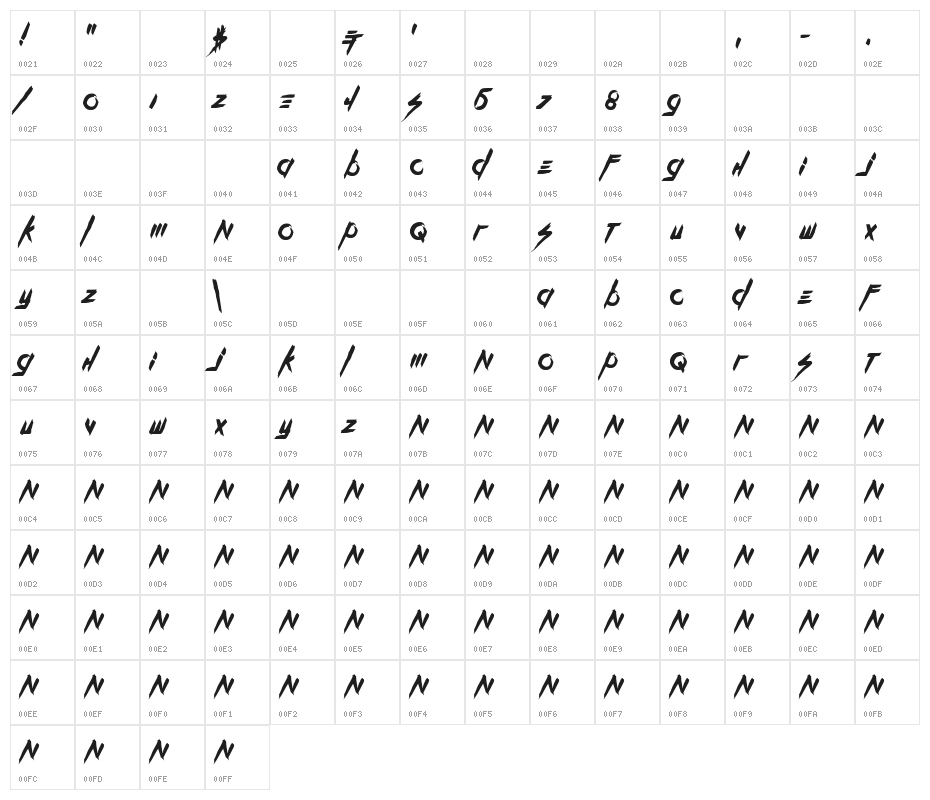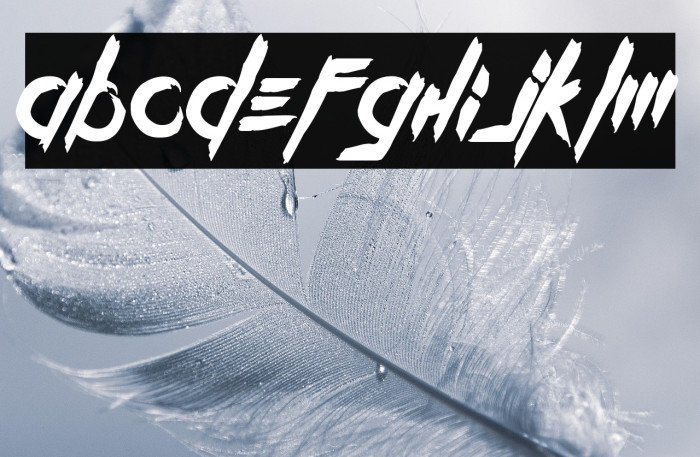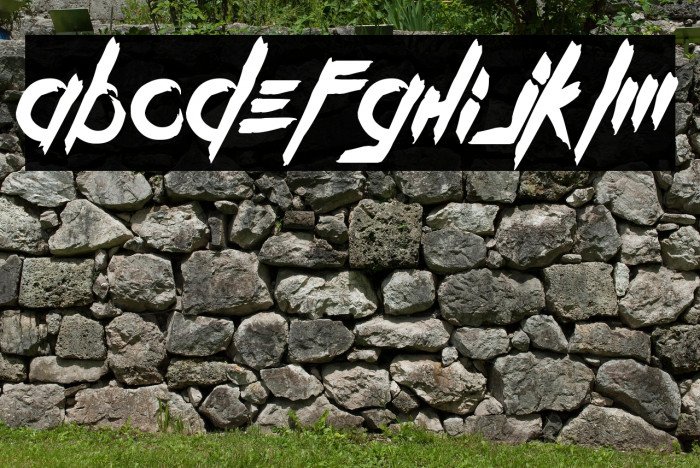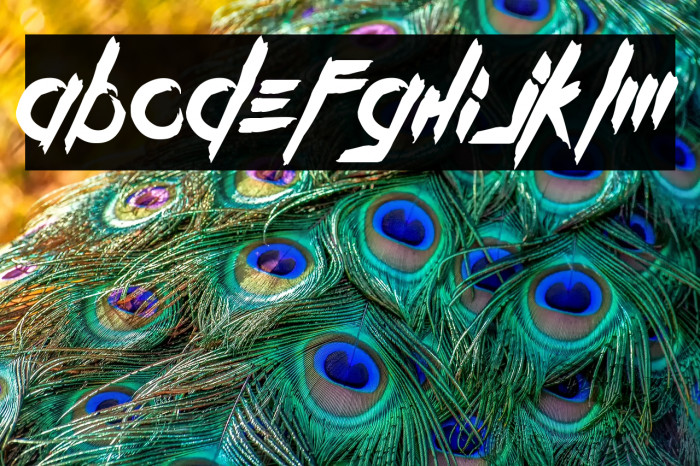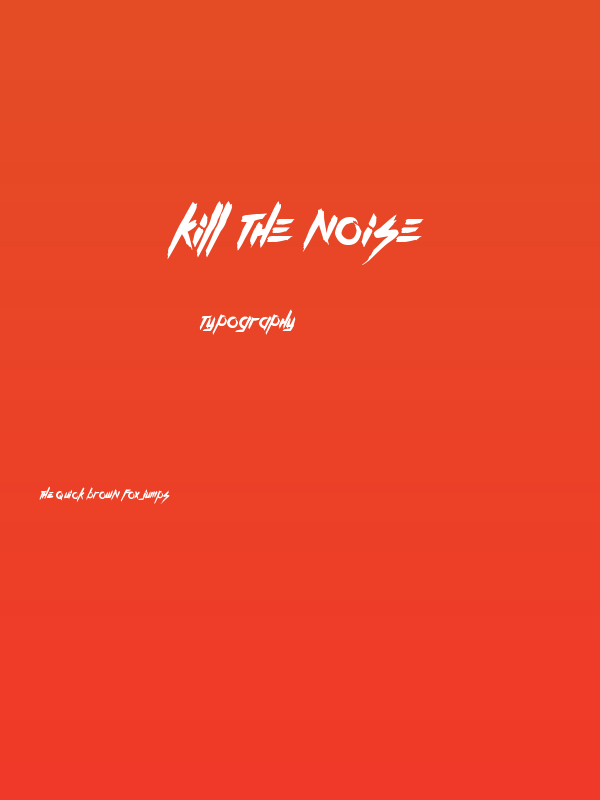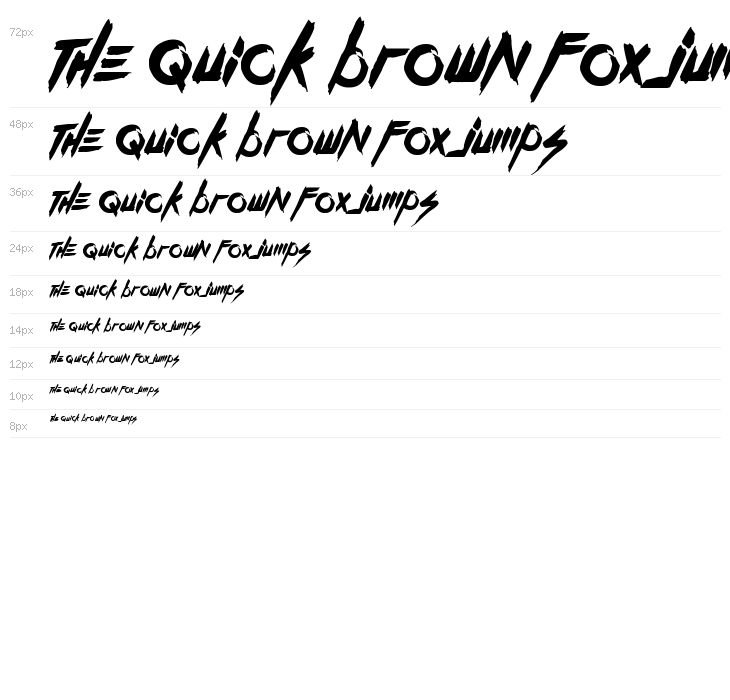
Kill The Noise Font
Kill The Noise Description
This font features a bold and aggressive style with sharp, jagged edges that give it a dynamic and energetic appearance. The characters are highly stylized, with exaggerated angles and a sense of motion, reminiscent of graffiti or street art. The uppercase and lowercase letters maintain a consistent design, emphasizing the font's edgy and rebellious nature. Numbers and special characters follow the same aesthetic, ensuring a cohesive look across all text elements. The font's unique style makes it stand out, capturing attention with its striking visual impact.
| Overall Style | Modern, Edgy |
| Proposed Projects | Ideal for music album covers, streetwear branding, skateboarding events, and edgy poster designs. |